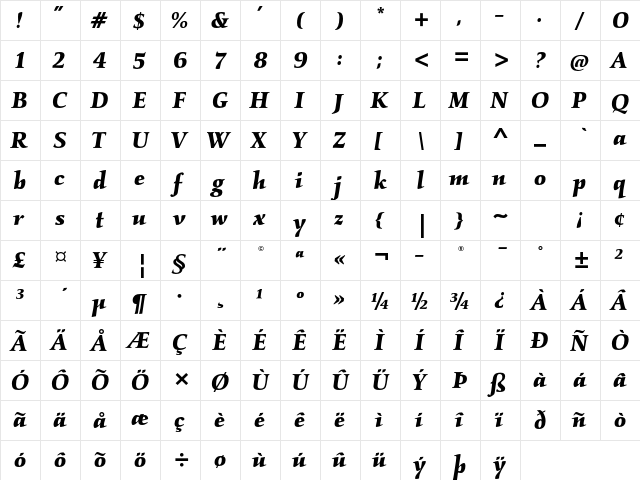
Kallos ITC Std Bold Italic
| Designer | Phill Grimshaw |
Design Context for Kallos ITC Std Typeface
Kallos ITC Std takes a measured approach to typography — its balanced proportions and neutral character make it a reliable workhorse for both digital and print work. The slanted form adds forward momentum and visual energy. Its bold stroke weight gives it real presence on the page.
Pro Tip: Use Kallos ITC Std for emphasis, pull quotes, and subheadings where its slanted energy can add rhythm to the layout.